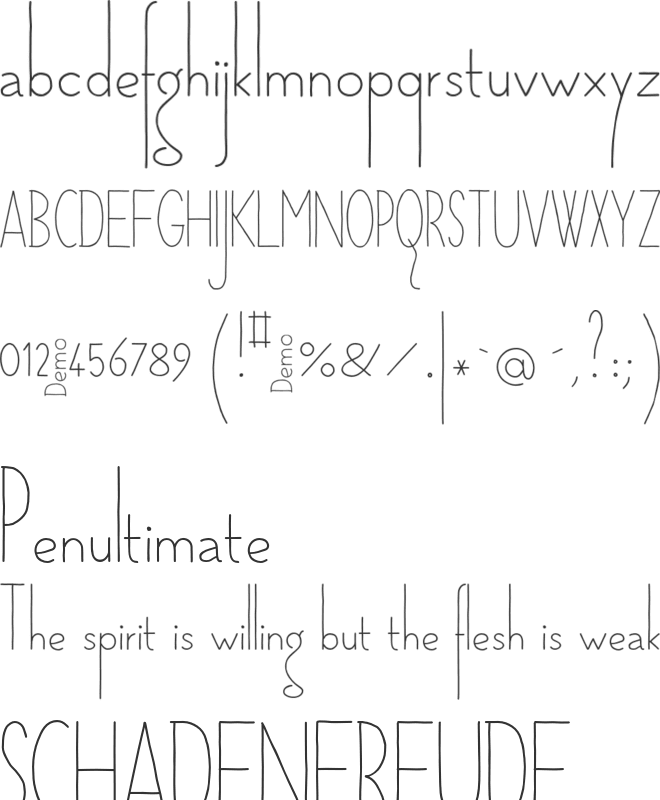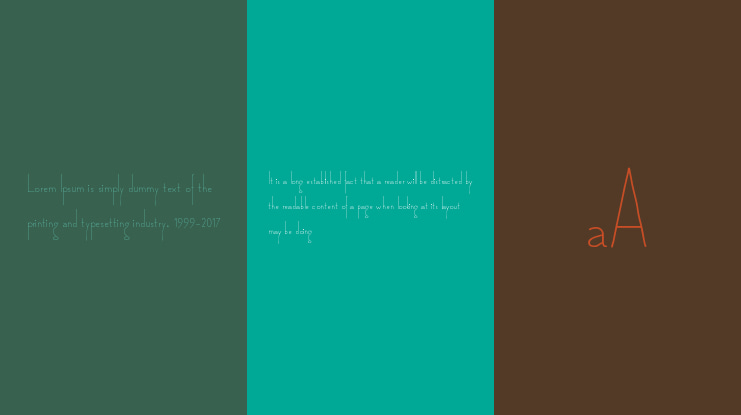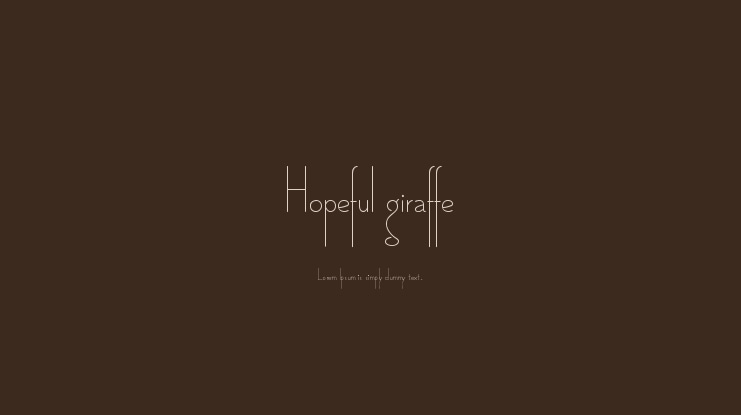
Hopeful giraffe Font
Created by Jean Boyault of JBFoundry. Long legs, long neck, low x-height, itâs Hopeful giraffe. This is a demo and free for personal use. For a full version and a commercial license, go here: www.myfonts.com/fonts/jbfoundry/hopeful-giraffe/